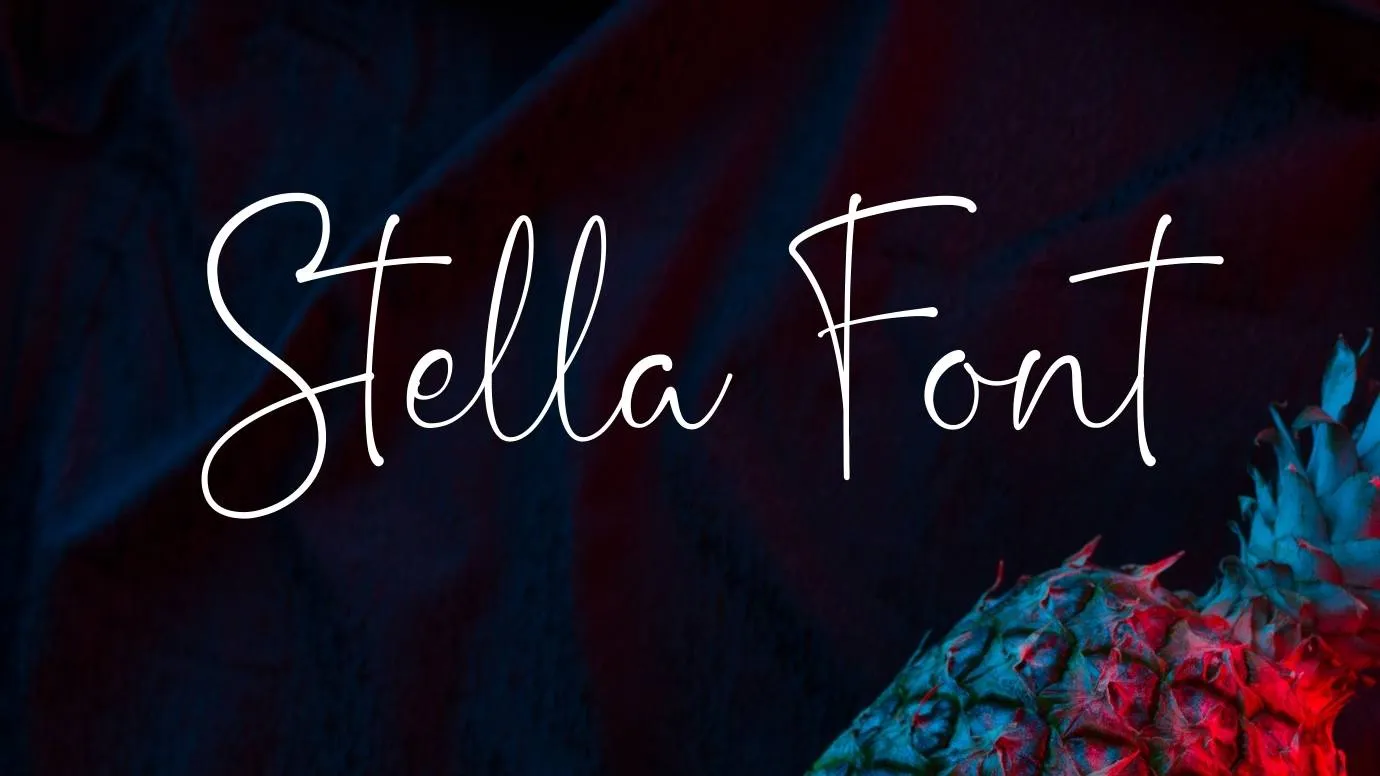
Stella Font Family is an outstanding and amazing font that has a rounded look. This font has bold and displays shape characters. Sarah Robbaniyyah is the basic developer of this font.
This font is used in many design projects and has a big history.This texture is suitable for use in modern text design purposes by making pairing with license plate usa font.